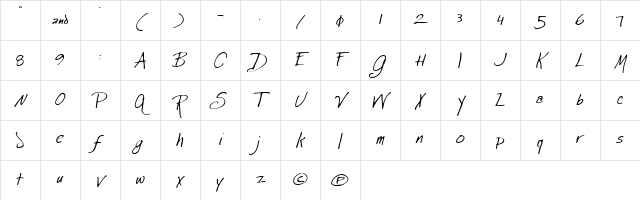
Jewel Hill Regular Free Font
Jewel Hill Regular
Design Context for Jewel Hill
Jewel Hill is a composed and adaptable typeface that performs quietly and consistently across a wide range of design contexts.
Pro Tip: Use Jewel Hill in both headline and body roles to test its range before committing to a single application.